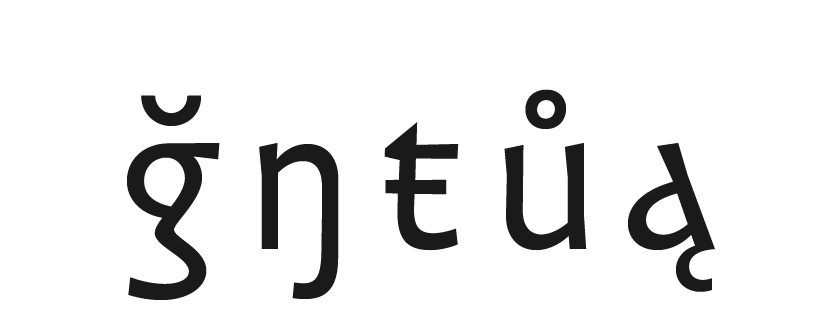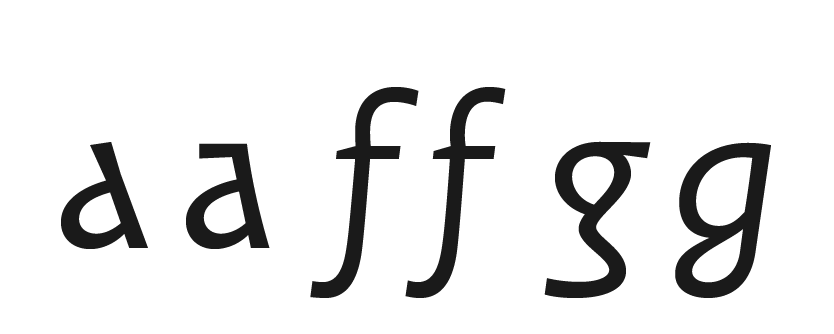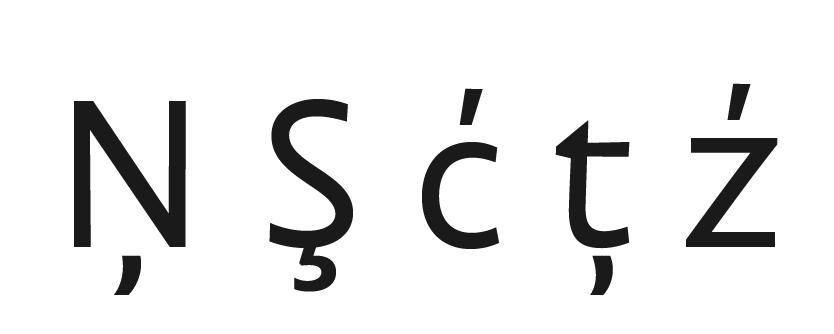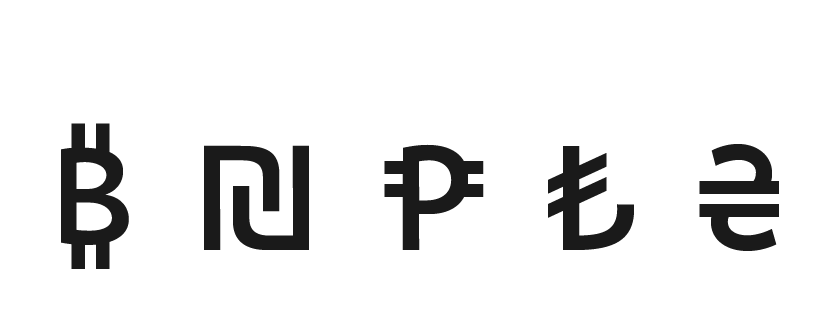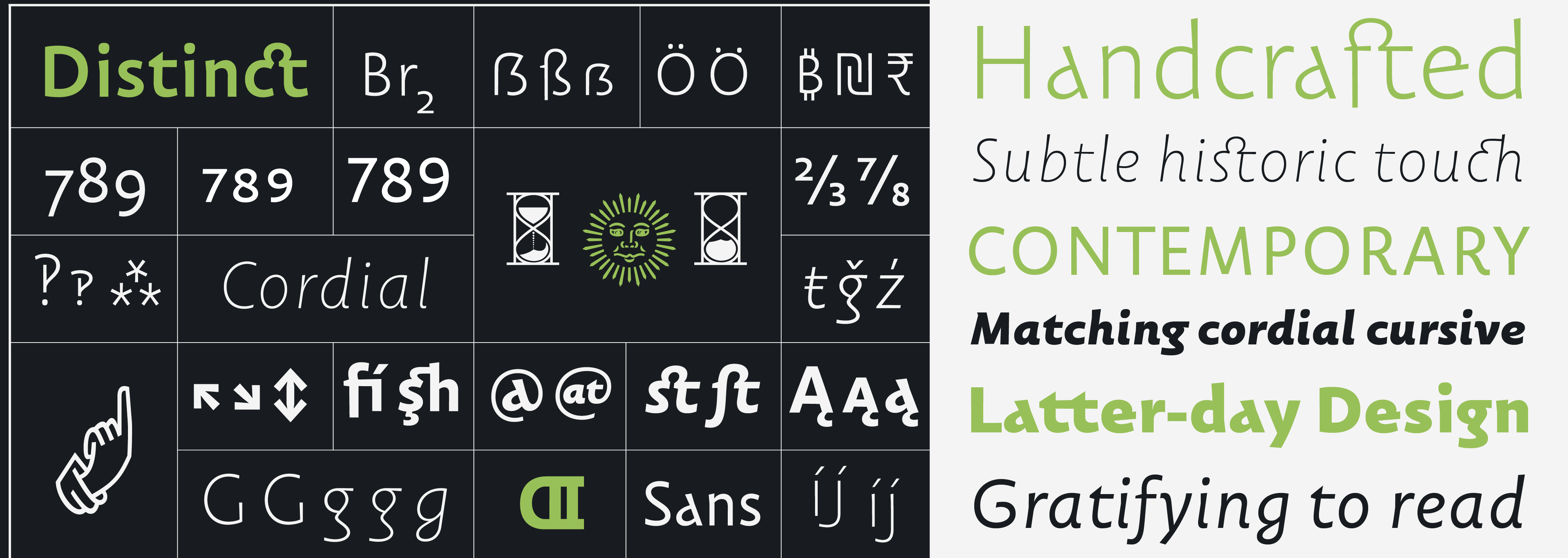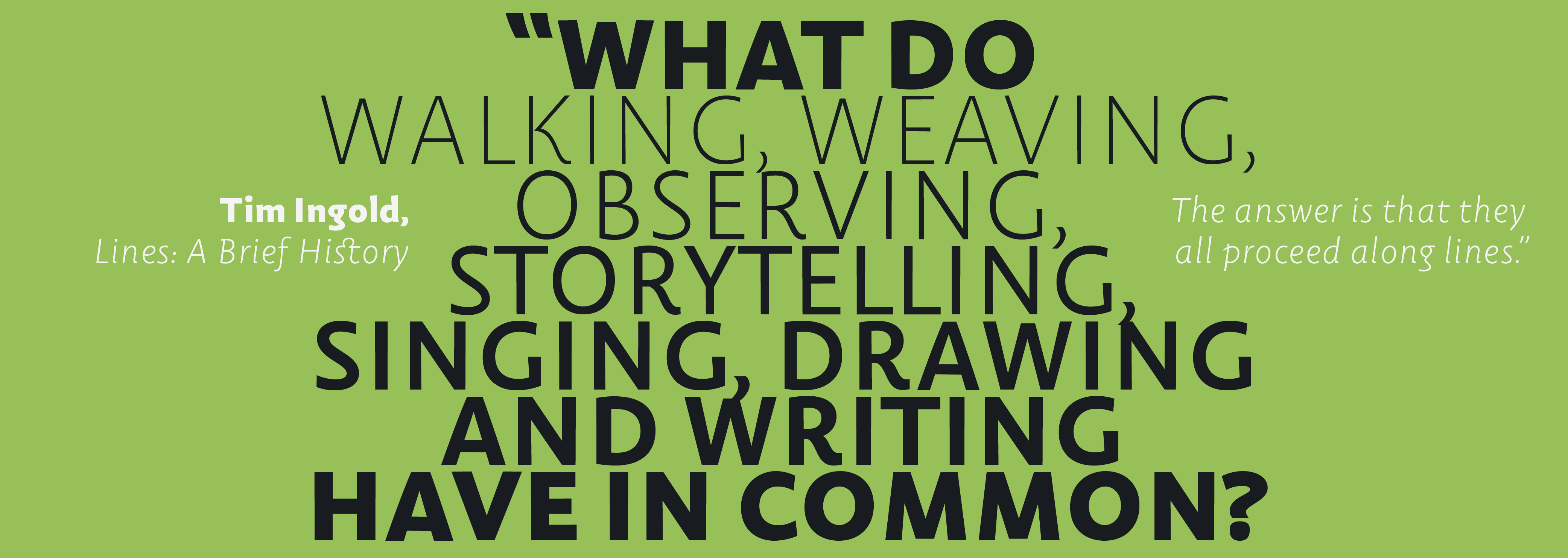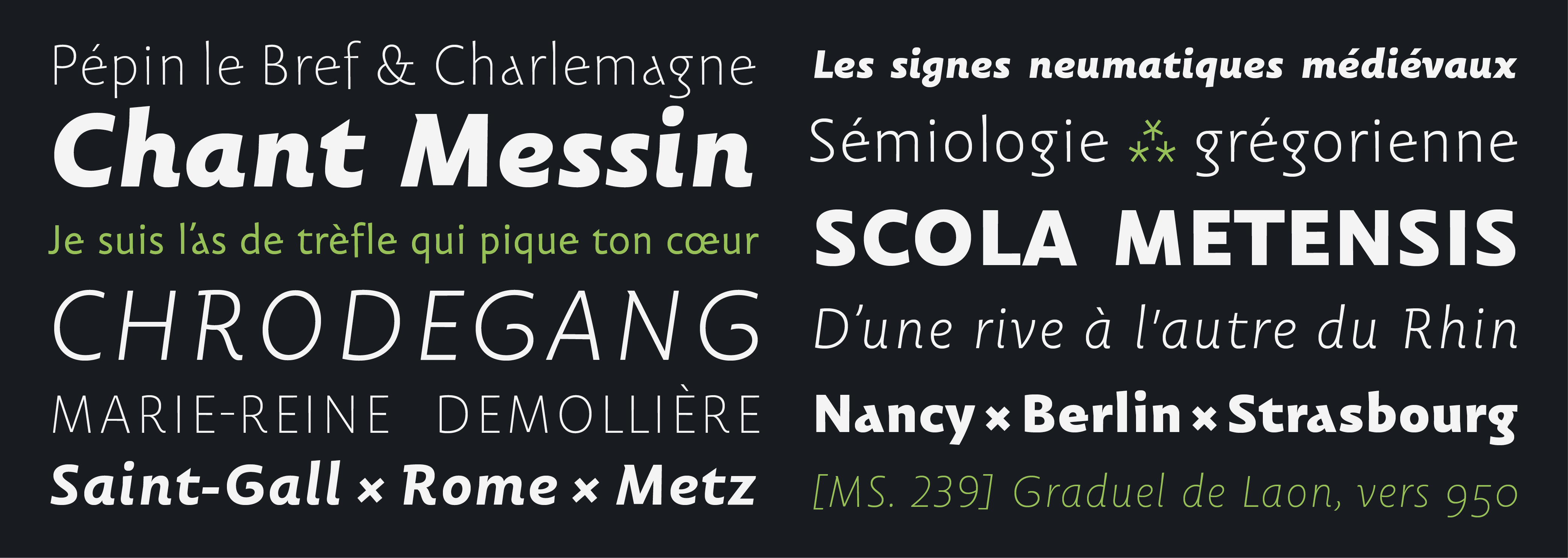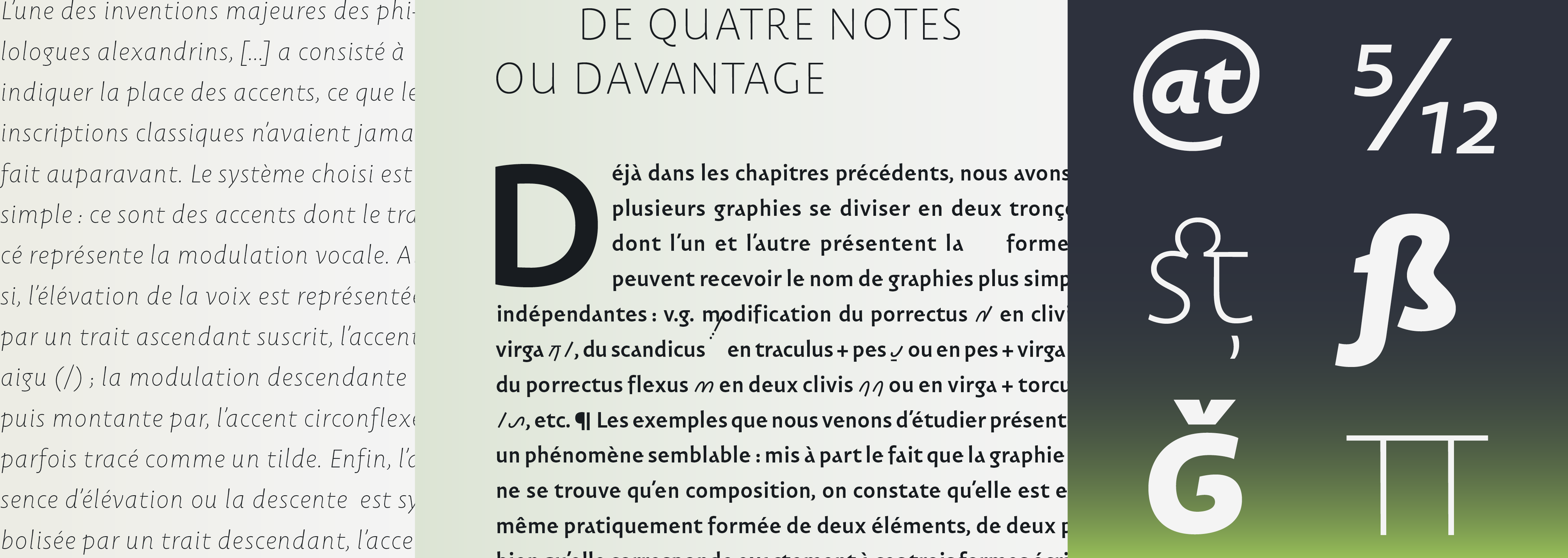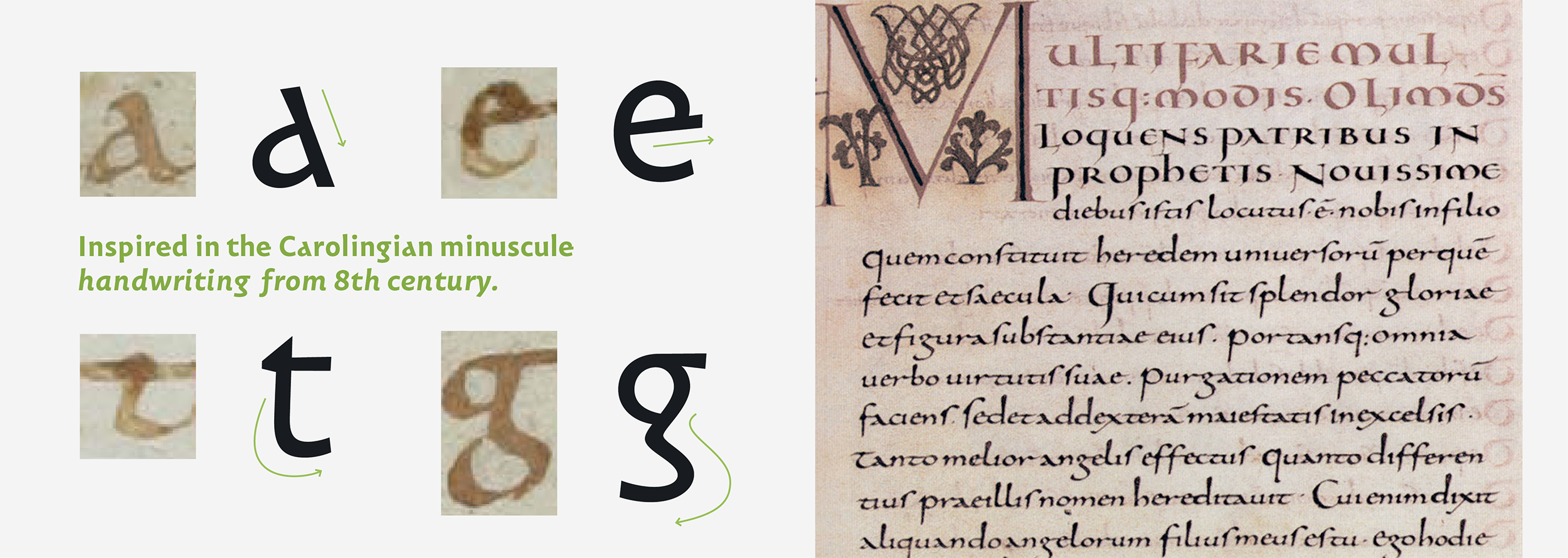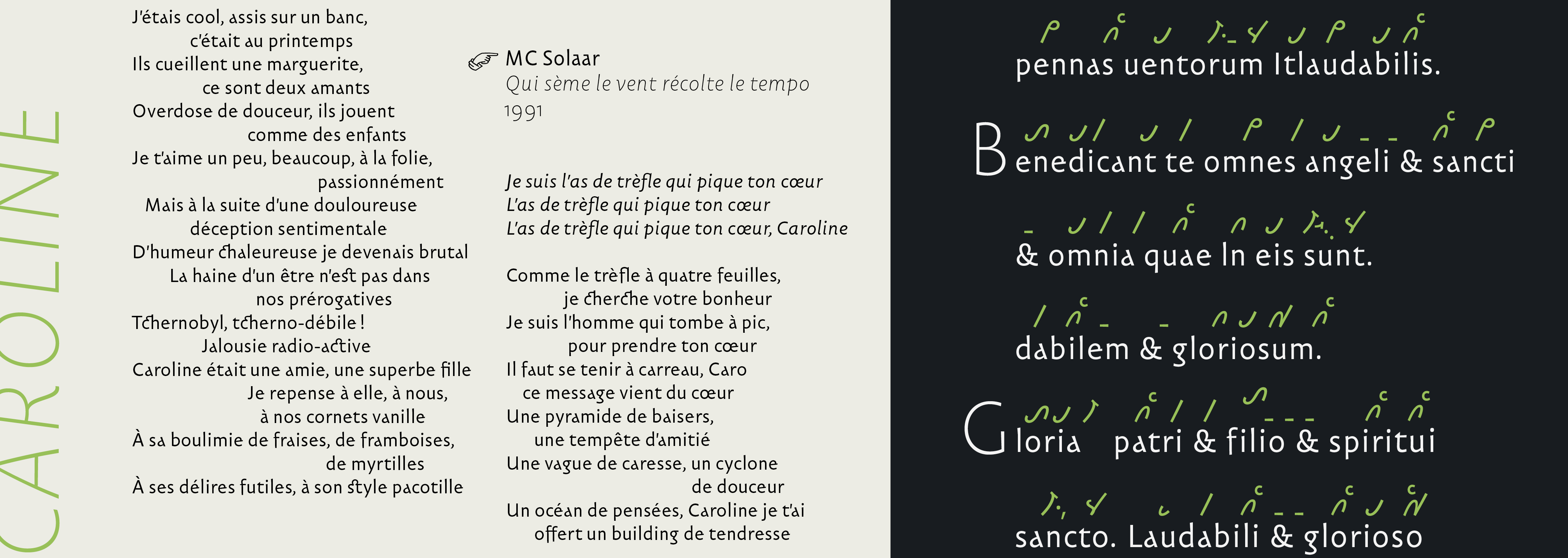
Carolinéale
Comfortable
Subtile touche historique
Latter-day design
Handcrafted
Gracieux & calme
Très Classique et Moderne
Flowing style
Matching cordial cursive
Snadná čitelnost
Enemmän luovaa kirjoittamista
Carolus Magnus (742-814)
Gratifying to read
A contemporary sanserif with a hint of history
Originally the result of a research project on the Carolingian minuscule, coined in the Frankish monasteries of the 8th and 9th centuries, as well as on the musical notation systems of the time, Carolinéale subsequently undertook a seven-year process to evolve into a versatile sanserif of contemporary elegance. However, its voice still conveys a subtle touch of history. Equipped with all the typographic goodies the discerning typographer could need, Carolinéale is both a comfortably legible text face and a powerful display type that will stimulate readers at larger sizes.
Carolinéale
Characteristics
Language coverage
Latin extended
Styles
Carolinéale Thin
Carolinéale Thin Italic
Carolinéale Light
Carolinéale Light Italic
Carolinéale Regular
Carolinéale Italic
Carolinéale Medium
Carolinéale Medium Italic
Carolinéale Bold
Carolinéale Bold Italic
Carolinéale Black
Carolinéale Black Italic
Features & Specials
extended latin
pinyin latin
smallcaps
all smallcaps
case sensitive forms
ligatures
discretionary ligatures
german eszett
historical forms
alternate forms
localized forms
Extended currencies
tabular currencies
smallcap currencies
Old style figures
Lining figures
Smallcap figures
Tabular old style figures
Tabular lining figures
tabular smallcap figures
slashed zero
smart fractions
superiors & inferiors
ordinals
extended punctuation
Manicules
Arrows
special symbols